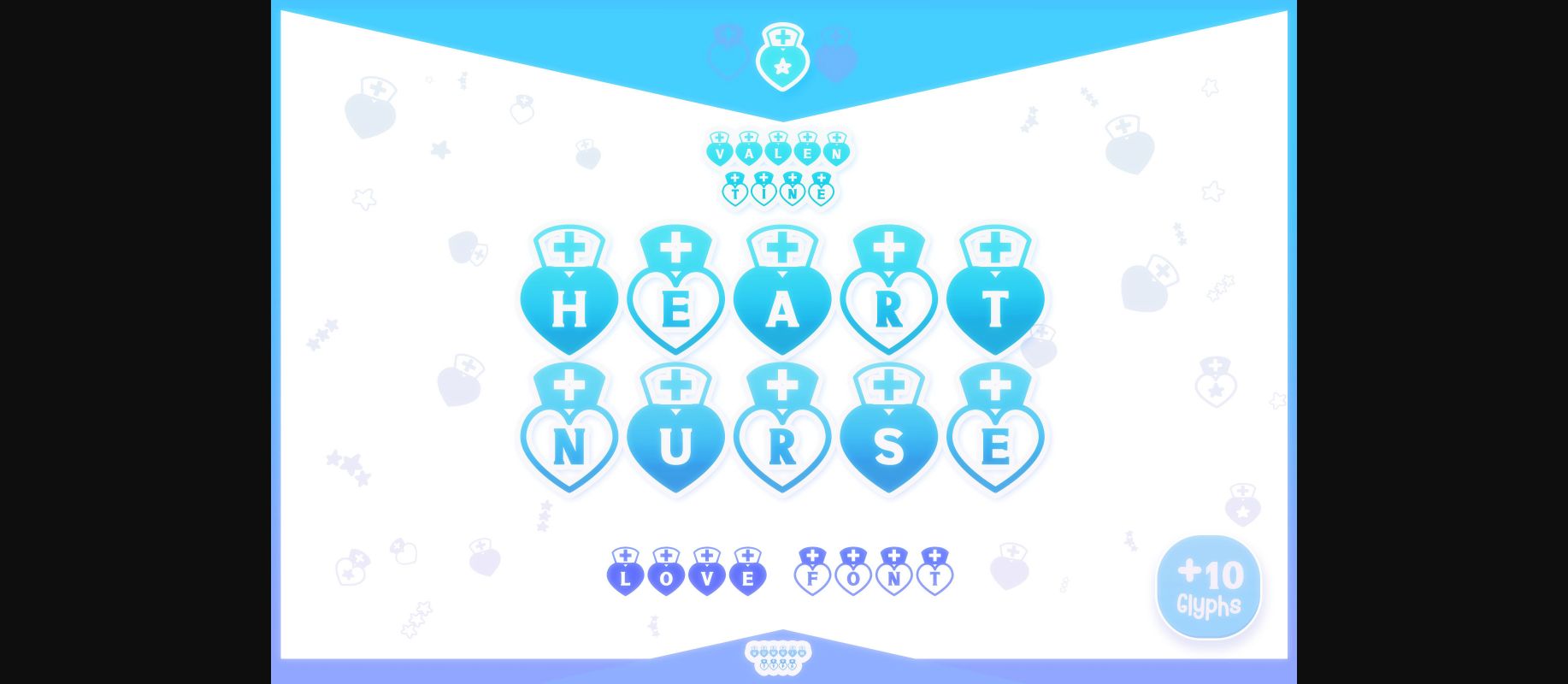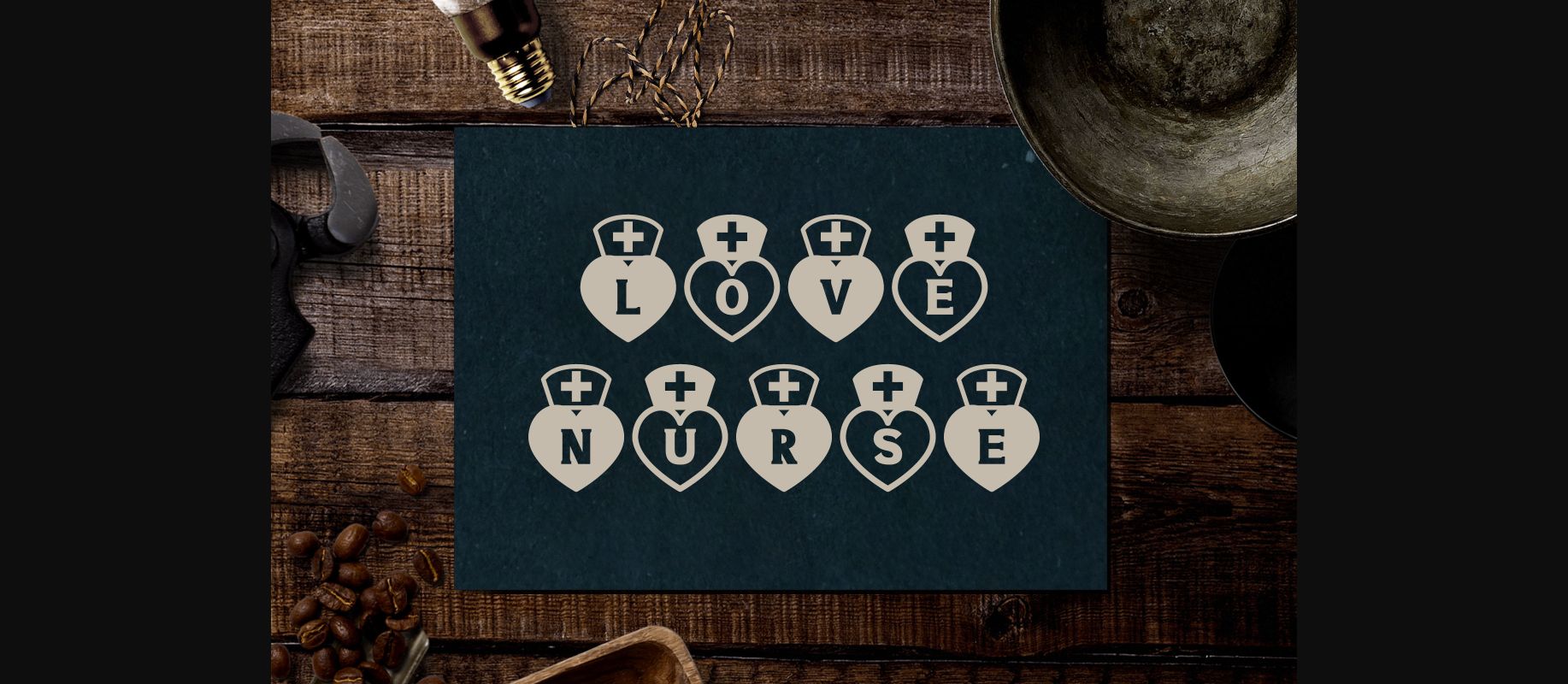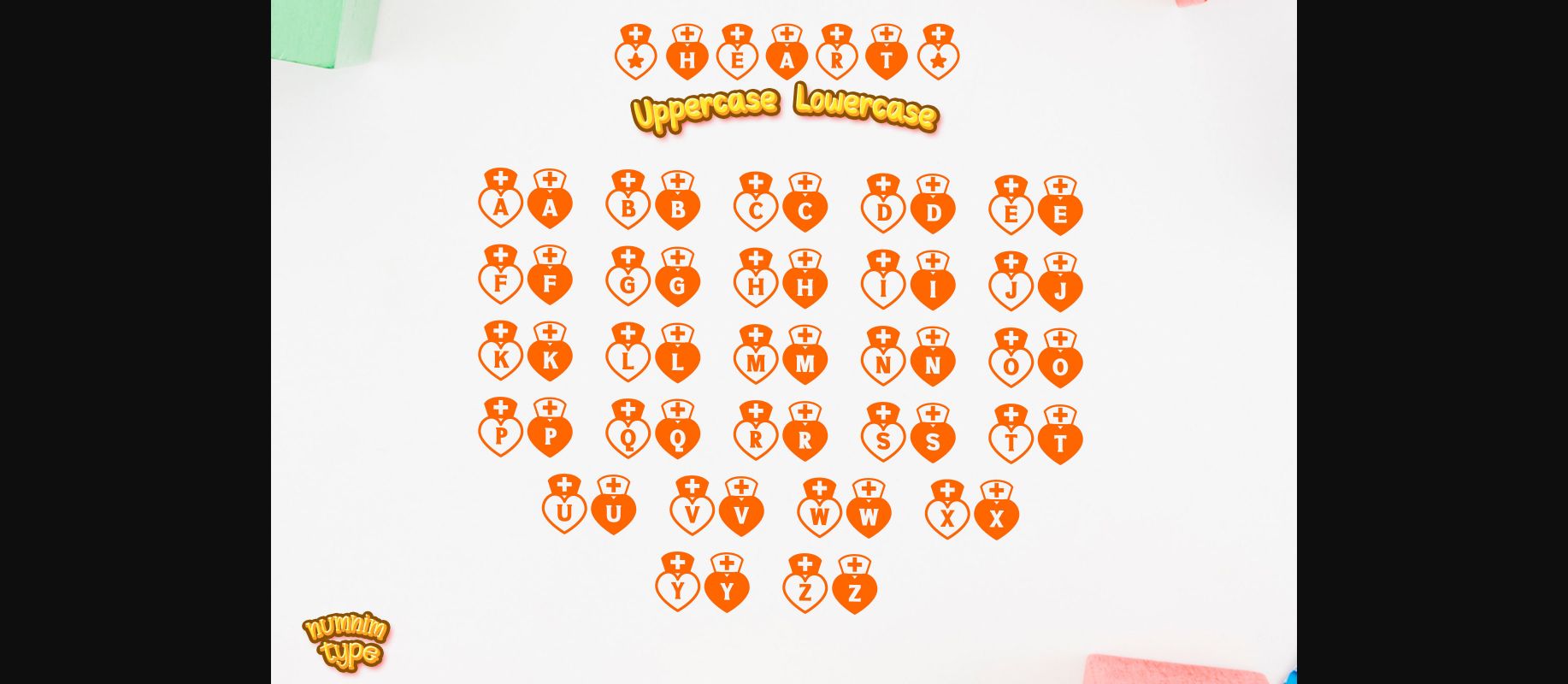
About Heart Nurse Font
Heart Nurse is a cool and uniquely crafted decorative font. Its fun and playful characters make it the perfect font for stickers, mugs, t-shirts, ornaments, Valentine’s Day’s cards, event invitations, and many more! This font is PUA encoded which means you can access all glyphs and swashes with ease!